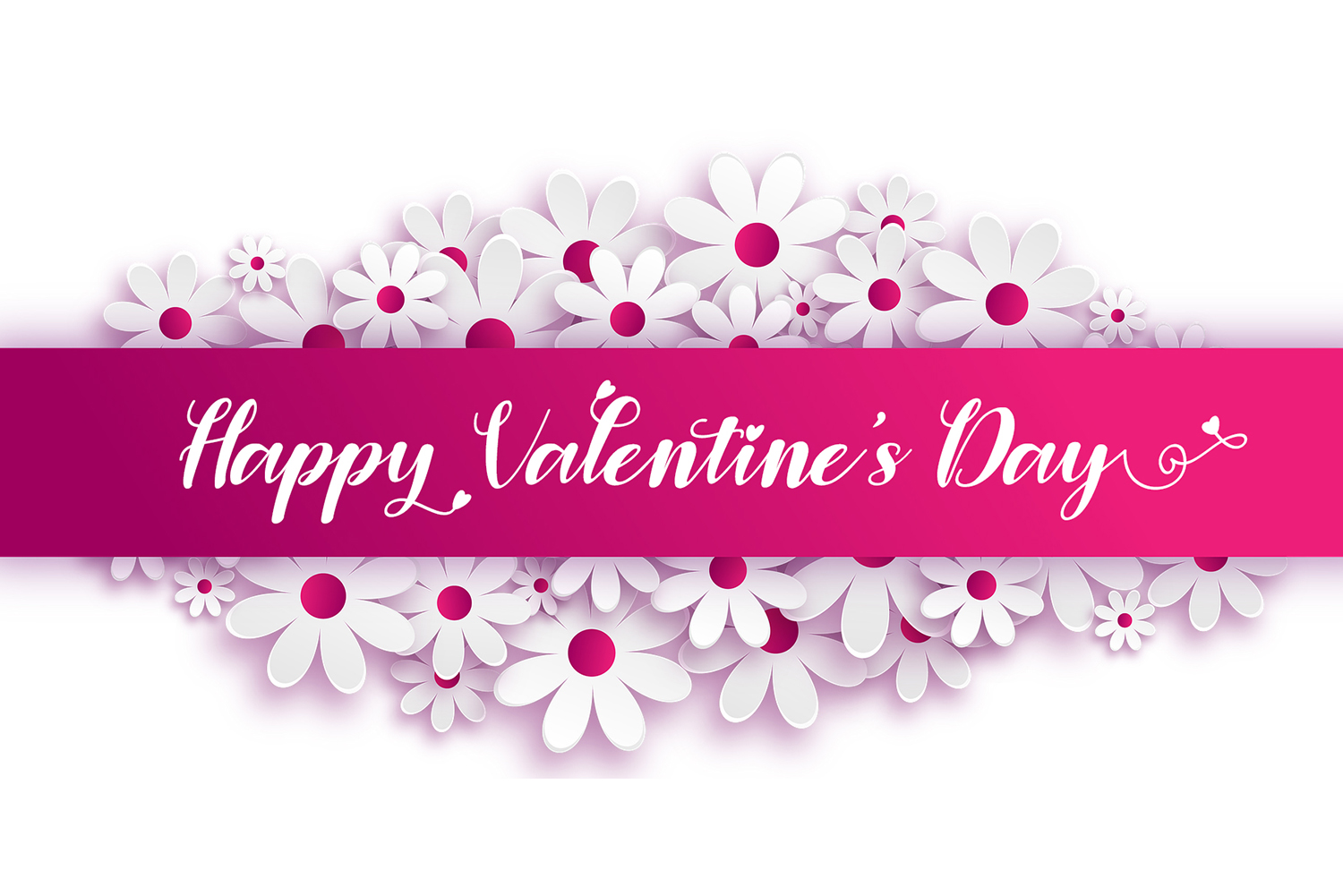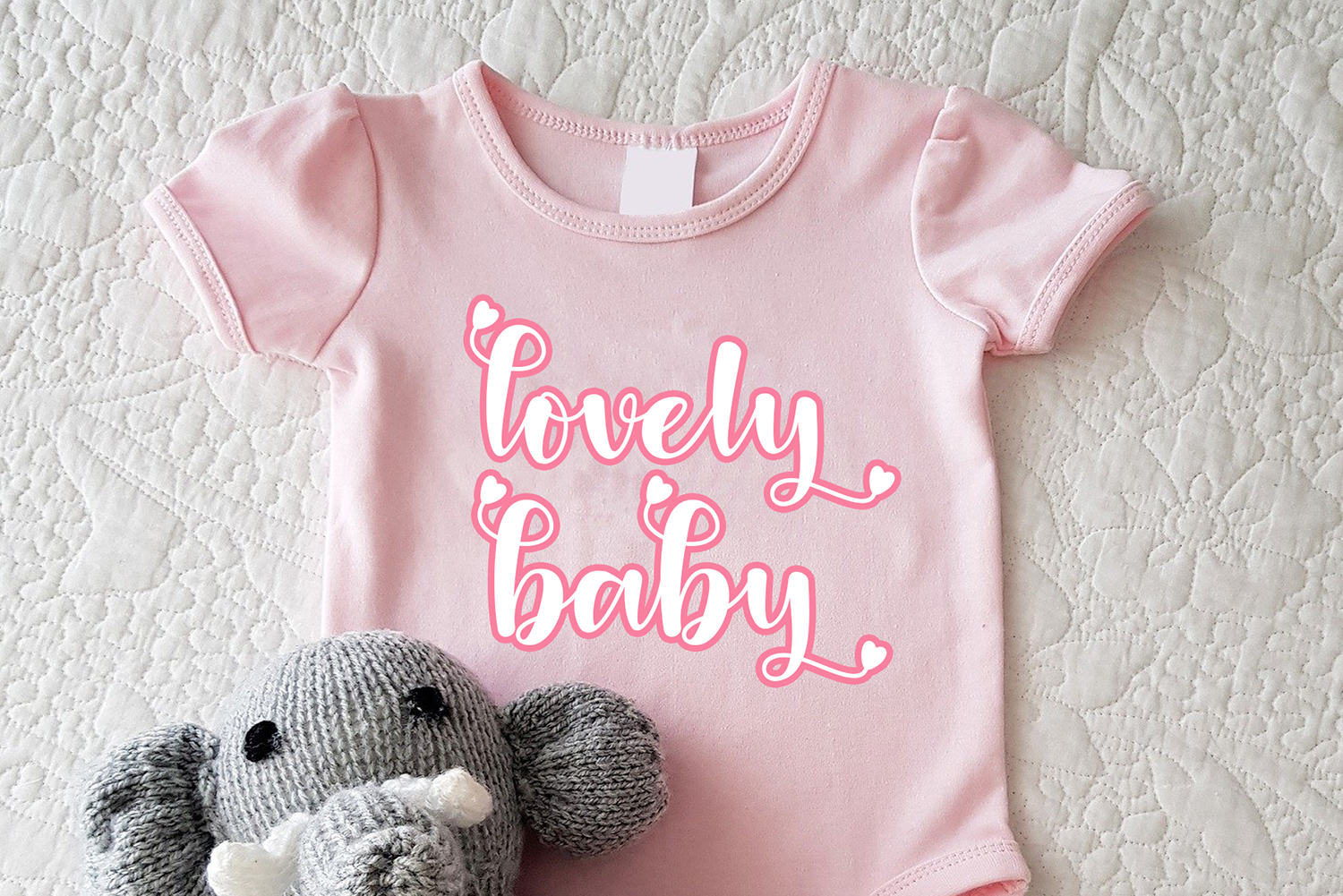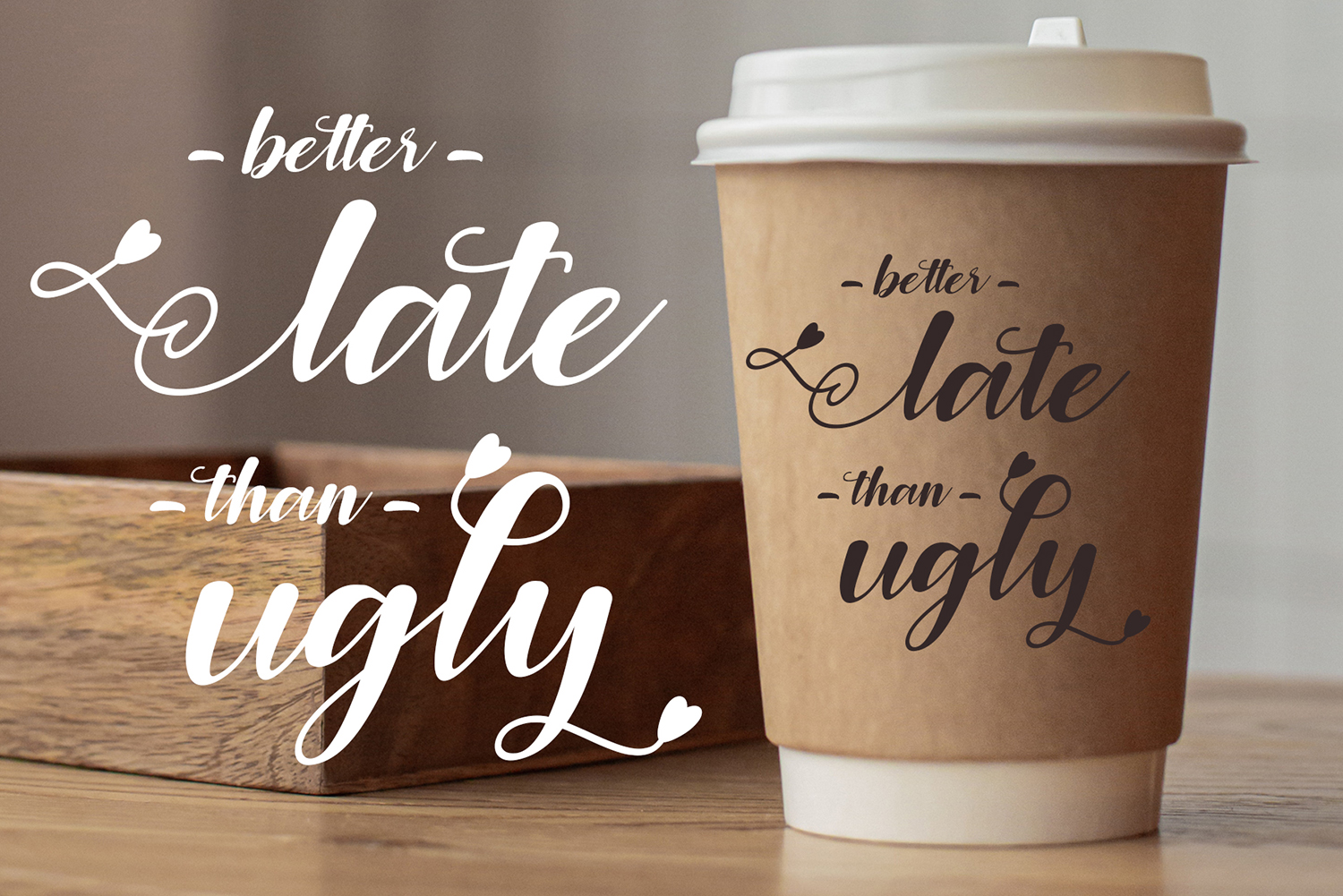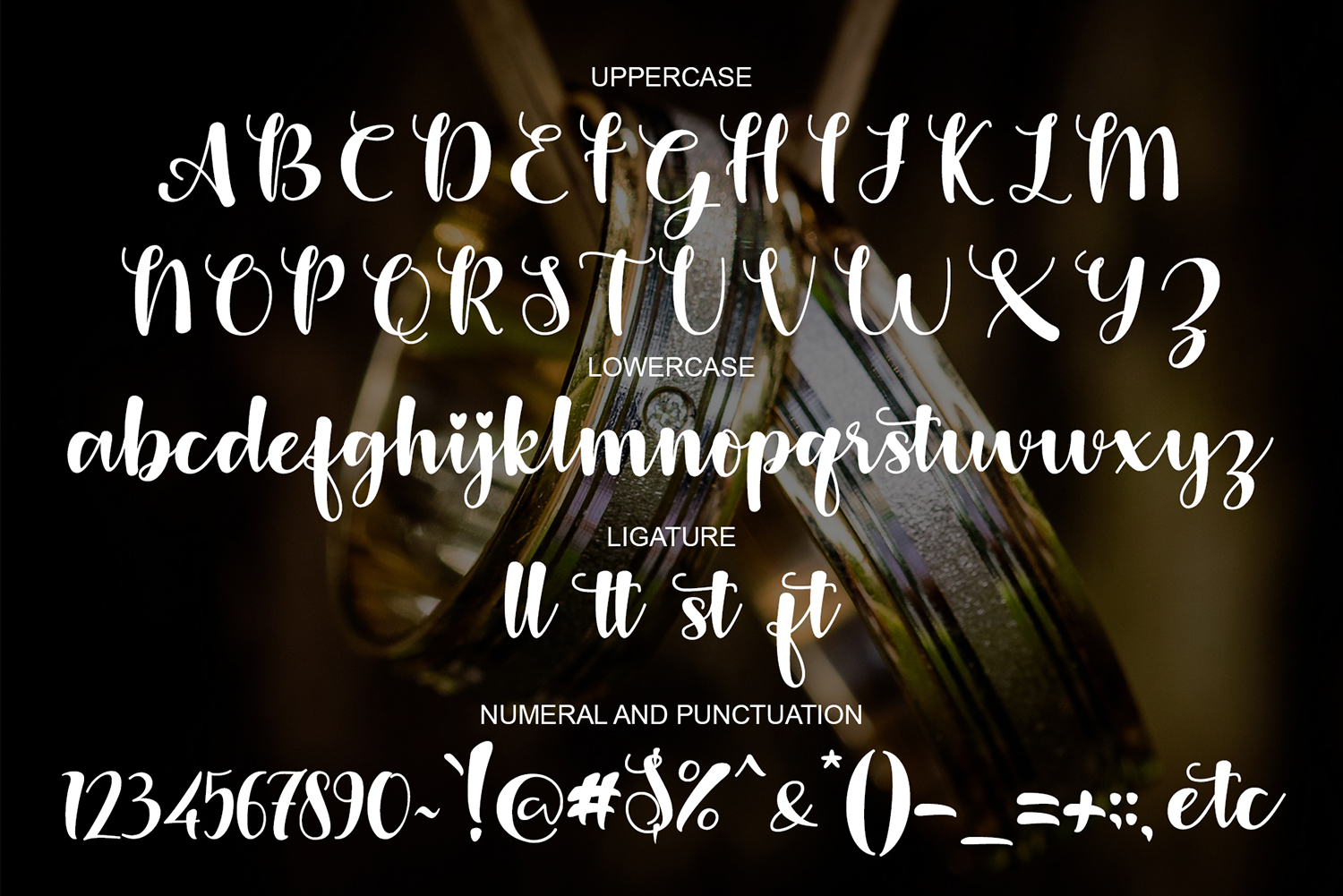
Dear Sweetheart Free Font
Dear Sweetheart Free Font is a script font radiating romance and sweetness, with characters gracefully dancing along the baseline. Infuse a touch of luxury into your design projects with this captivating typeface. This free typeface was designed by a talented Sarif Hidayat. If you like it don’t forget to check out the full version.